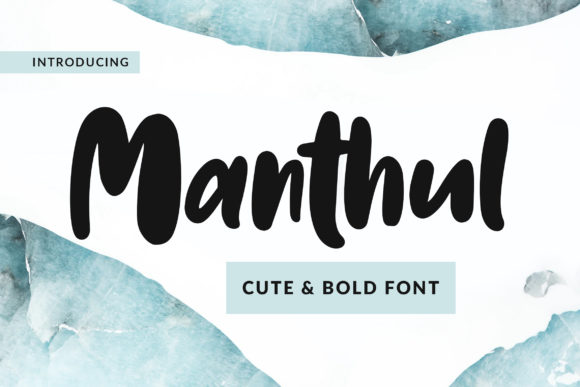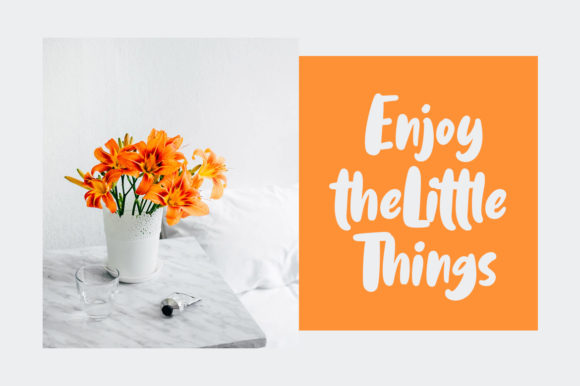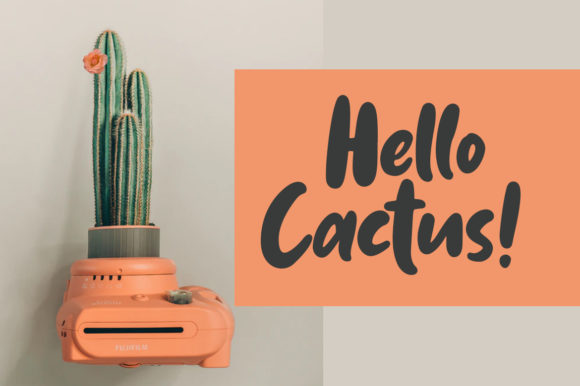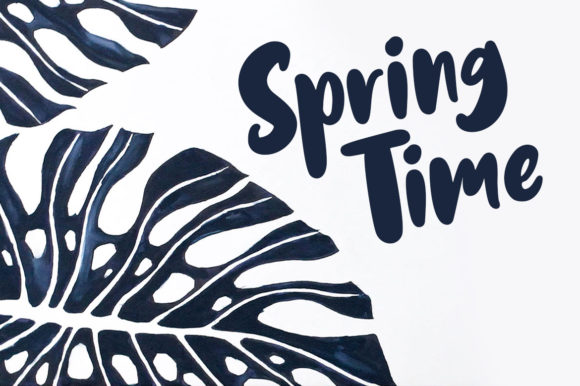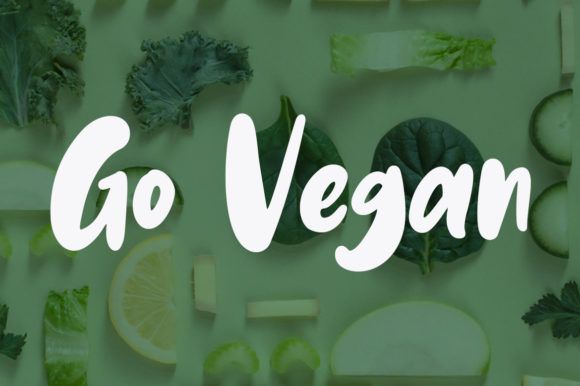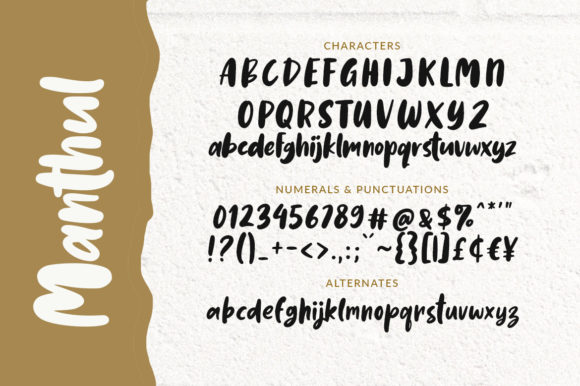
Manthul Font
About Manthul Font
Manthul is an equally cute and bold handwritten font that’s great for delivering any message with confidence and charm. It will elevate a wide range of crafting ideas, from anything from cards and branding to quotes, T-shirts and much more!